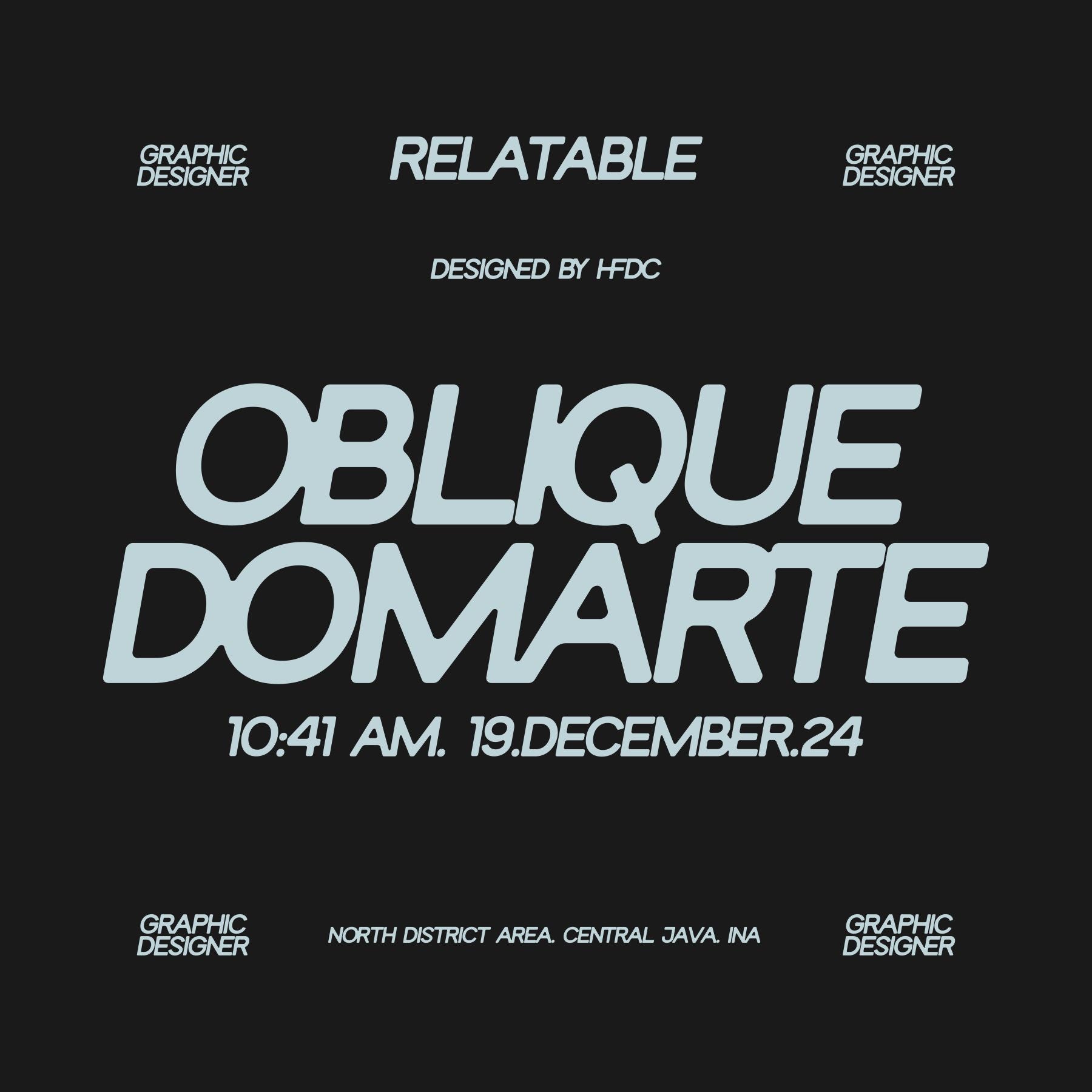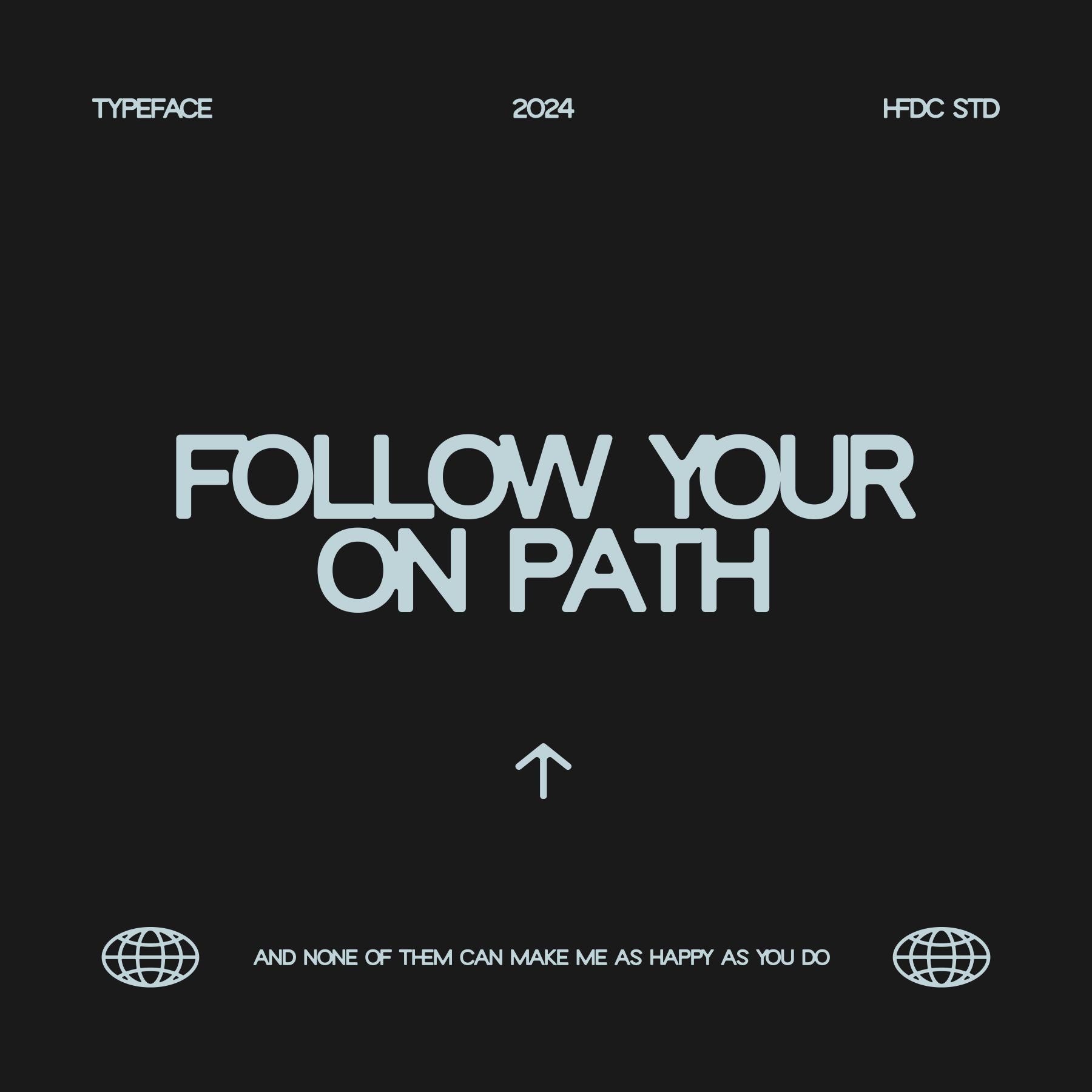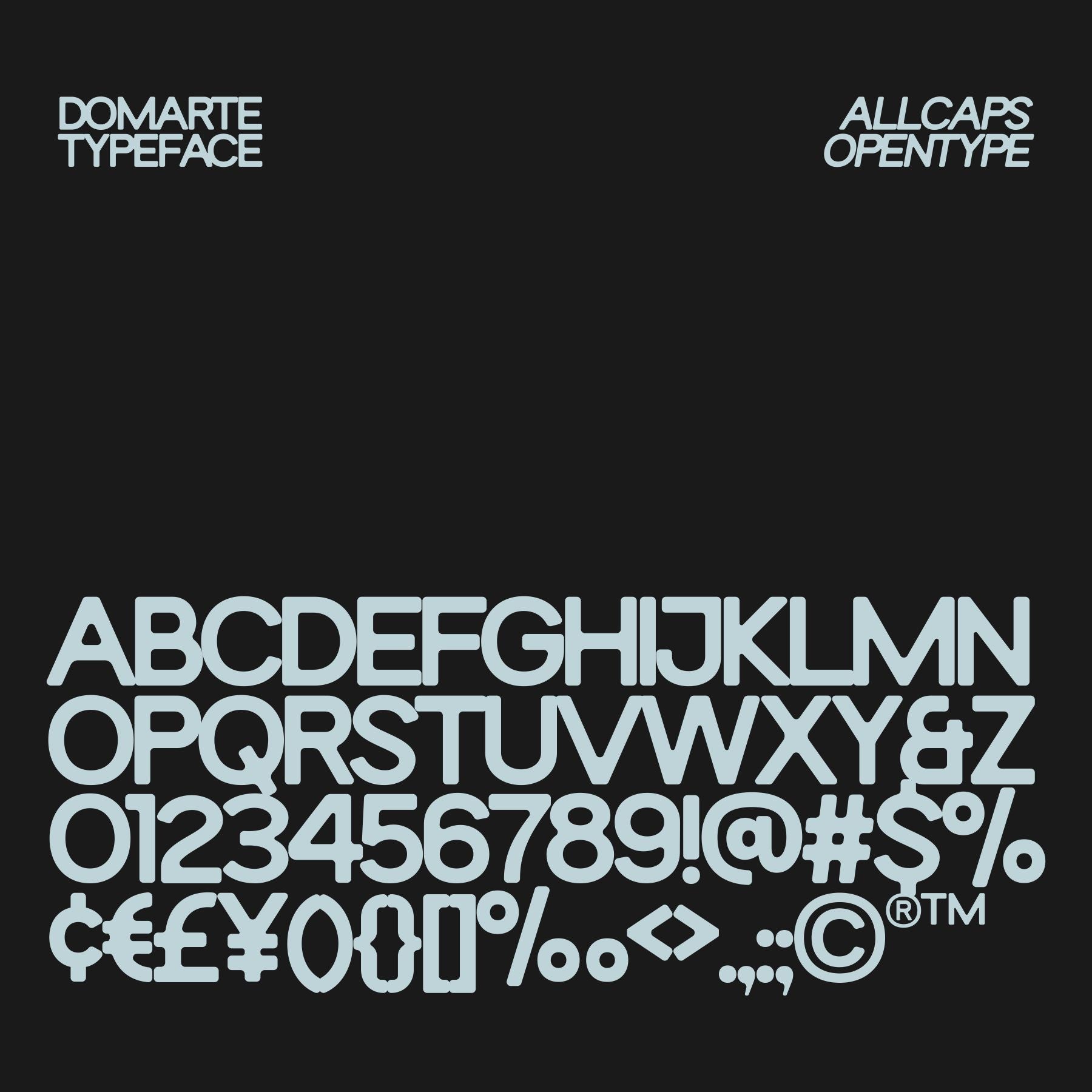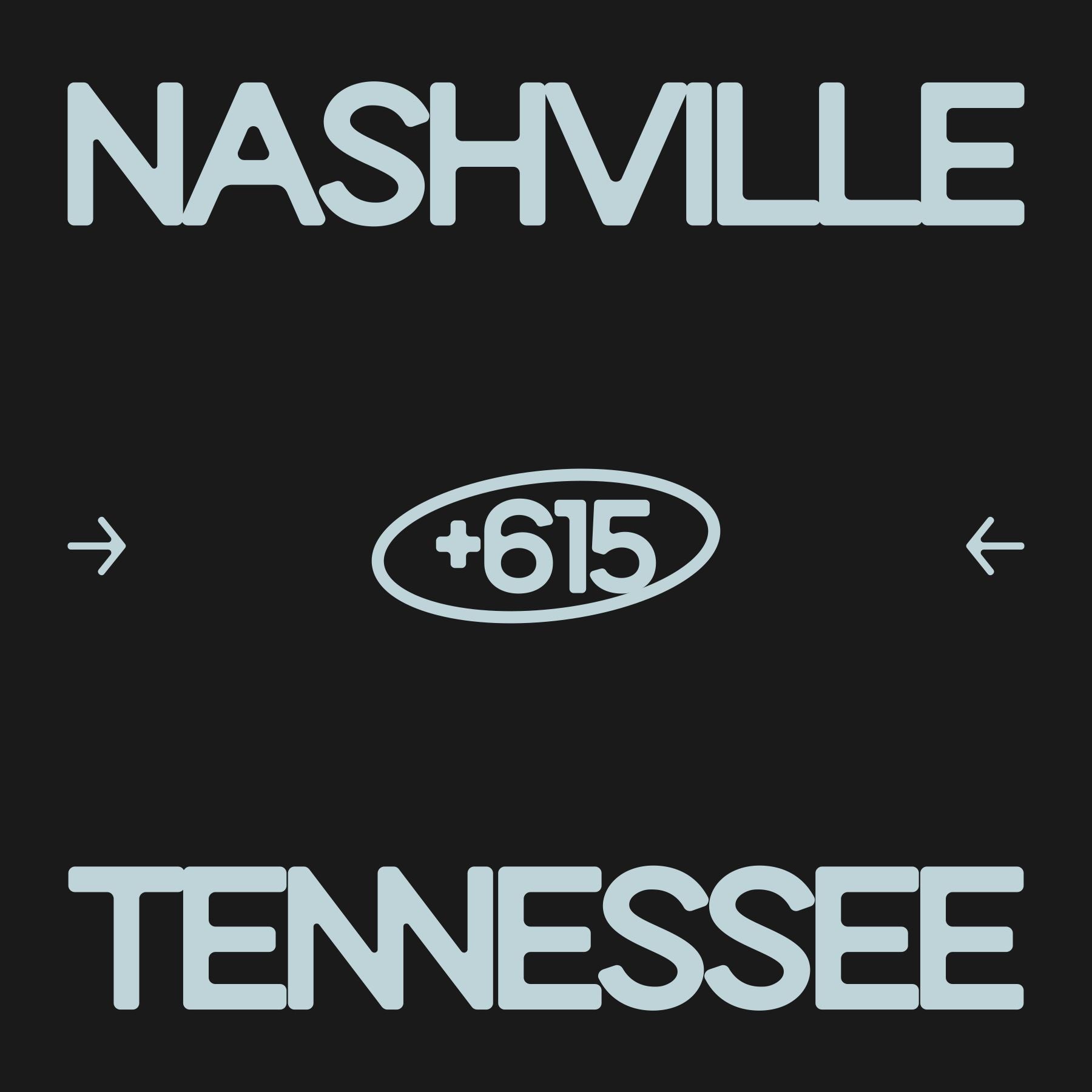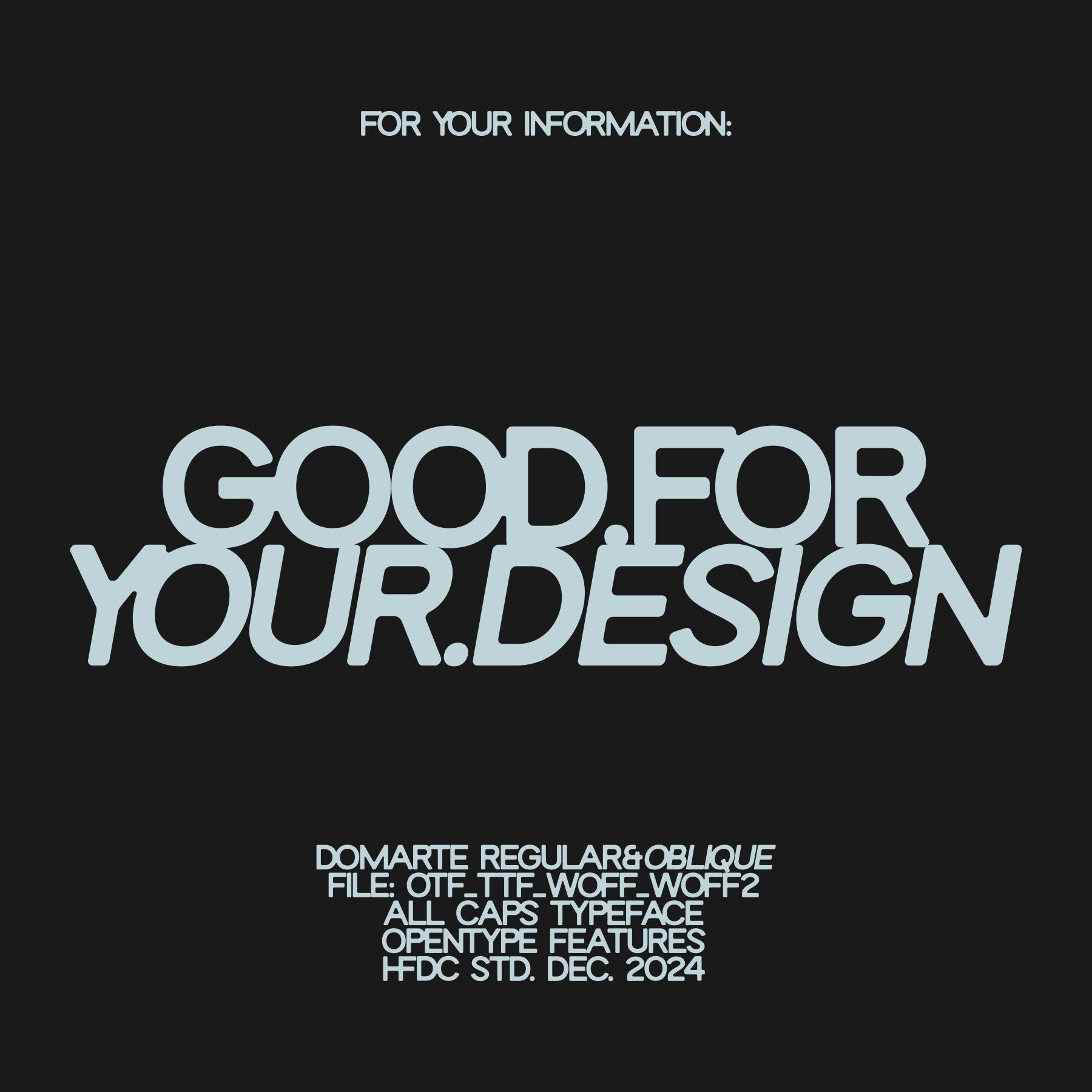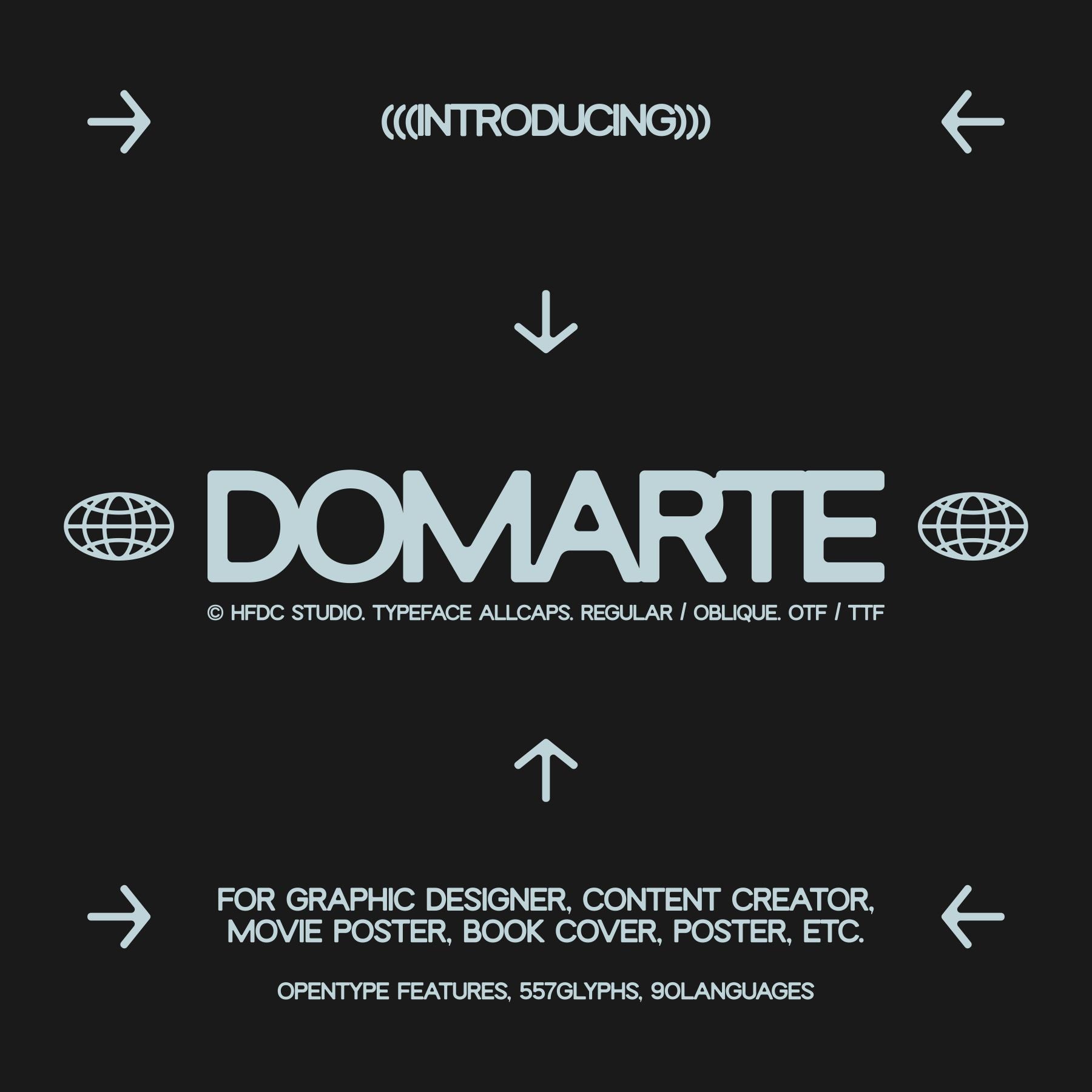
Domarte Display Typeface
Domarte is sans-serif typeface is designed with a modern, clean aesthetic. Every character is in uppercase, giving it a bold and uniform look. The standout feature of this font is its rounded corners, adding a soft, approachable vibe while keeping a sleek, professional feel.
Perfect for branding, posters, packaging, or any design project that calls for simplicity with a touch of uniqueness. The rounded edges bring a friendly twist, making it a versatile choice for contemporary design needs.